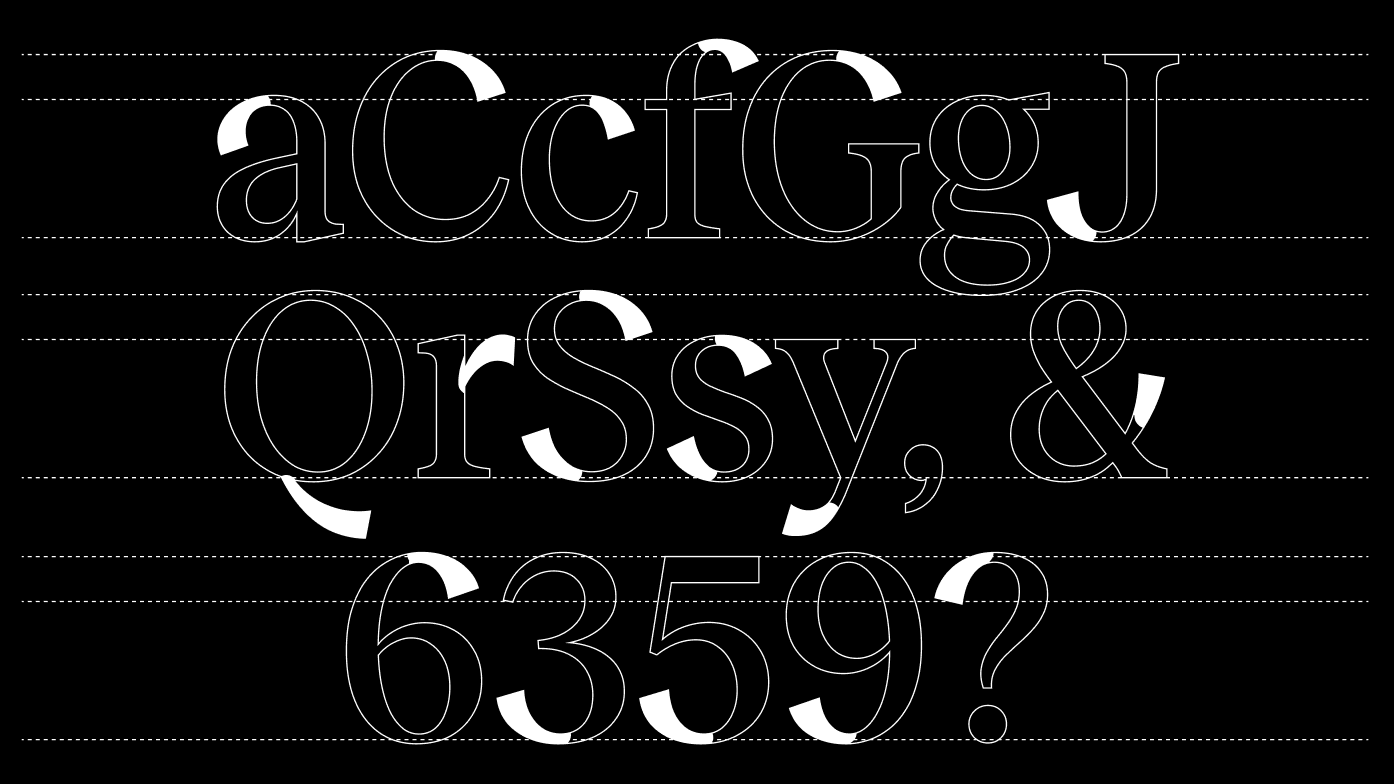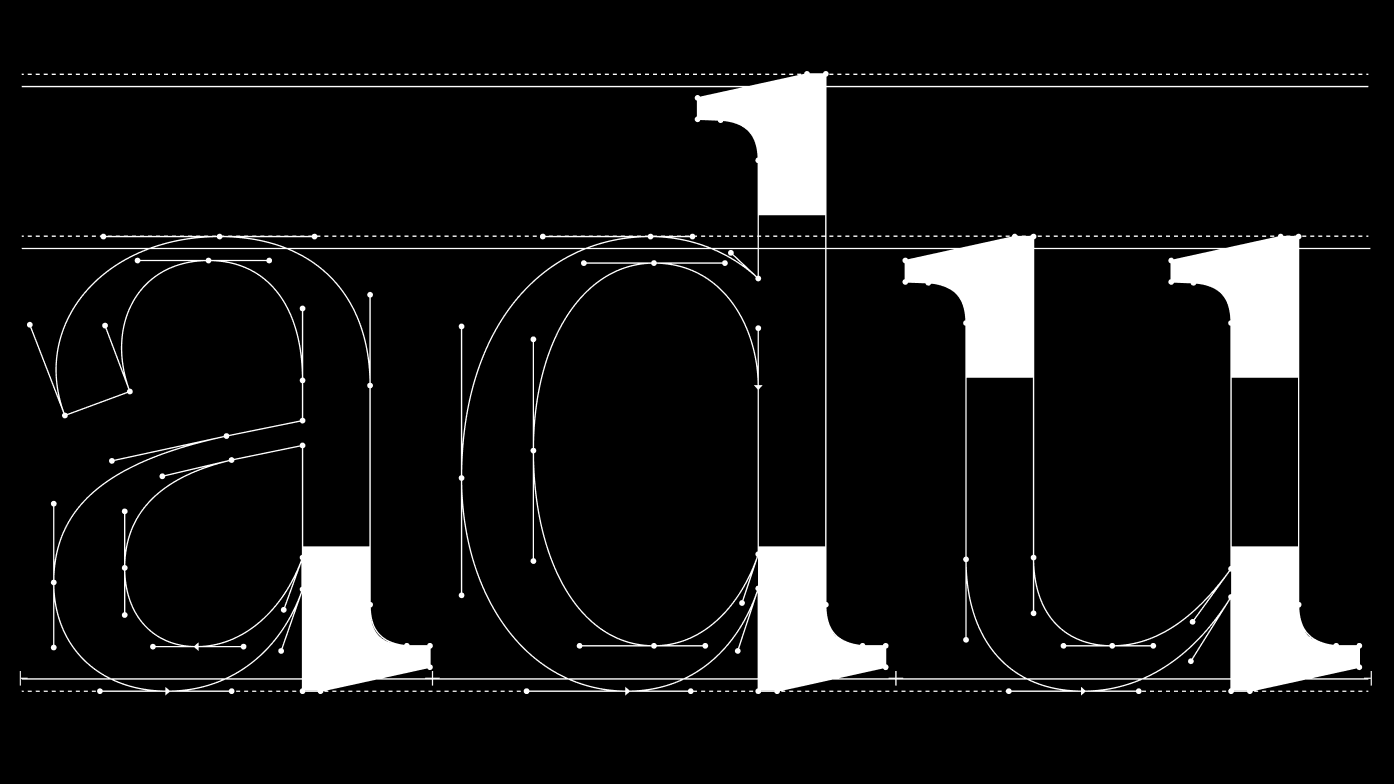
Reckless Collection: 9 Families, 72 Weights, 144 Styles
3 Width Families: Condensed, Standard, Wide each has 3 Contrast Sub-Families: S, M, XL
Variable Font: 3 Axes
Total: 12 Stylistic Sets, 9 Figure Sets, 7 Others
The letter inconsistencies in Times and other traditional serif typefaces served as the starting point. In particular, the different shapes of the bottom parts in the letters “a, d, u” made me rethink why they are designed differently — and why not give them a consistent form. Source
Bembo typeface, calligraphy terminals. The letters “a, f, j, r,” where the terminals follow a calligraphic approach, caught my eye and sparked the idea for Reckless. It made me wonder where else such terminals could be used. Source
Research & studies during UAL London internship. In September 2012, in London, Martin Vácha researched serif typefaces in the Monotype archives during a major exhibition. The result was the first draft of Reckless.
Plantin typeface, the “a” detail. The detail in the letter “a,” where the calligraphic terminal of the top part ends in the same direction as the bowl of the upper part, is particularly elegant. Source
Reckless Medium, consistency: Finally, in September 2012, the first version of Reckless was drawn, where the bottom parts of the letters “a, d, u” share a consistent solution.
Reckless Medium, calligraphy terminals: A list of basic characters where the calligraphic terminals are applied.
De Vinne Series, specimen book from Barnhart Brothers & Spindler, 1907. The final piece of the puzzle comes from the terminal treatment of the letters “C, c, G, S, s”. Source
Gerrit Dou: Scholar Sharpening His Quill, 1635. The master himself prepares his tool for the renaissance of calligraphy. I put everything I liked into the mixer, and Reckless is the final cocktail. That’s the reason for the name, by the way. Source
Range72 Weights, 144 Styles
3 VF Axes: Weight, Contrast, Width
First SketchSep 2012
ReleasedJun 2014